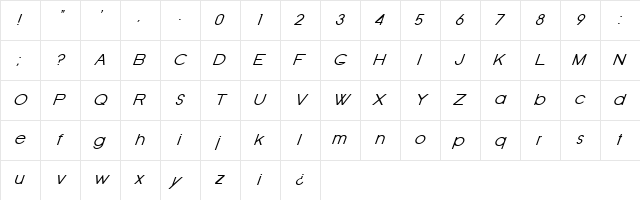
Old Republic Italic
Design Context for Old Republic Typeface
Old Republic is a composed and adaptable typeface that performs quietly and consistently across a wide range of design contexts. The dynamic lean of this cut emphasises speed and emphasis in any layout.
Pro Tip: Use Old Republic for emphasis, pull quotes, and subheadings where its slanted energy can add rhythm to the layout.